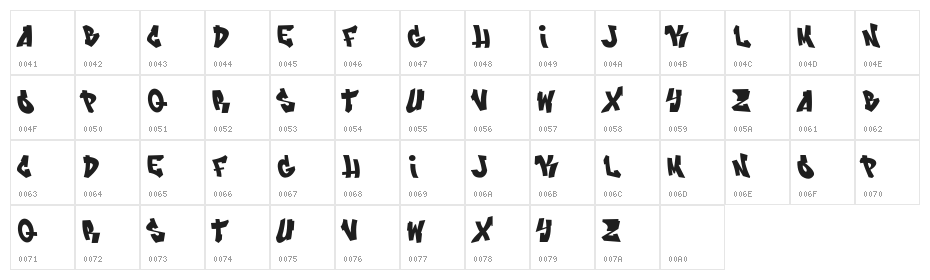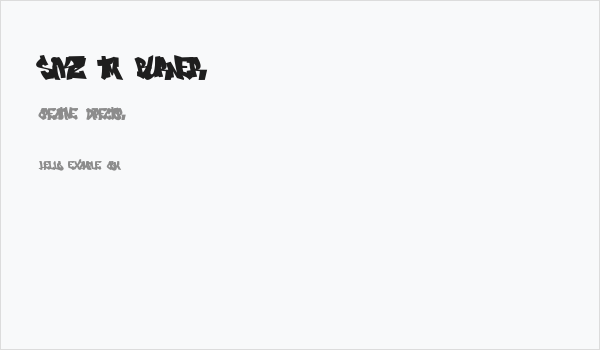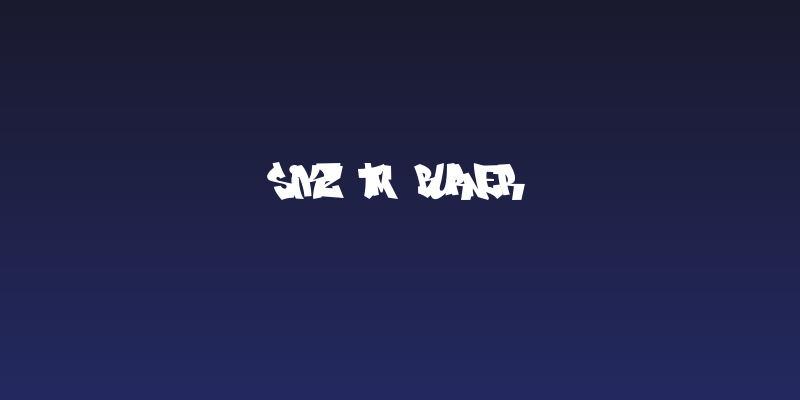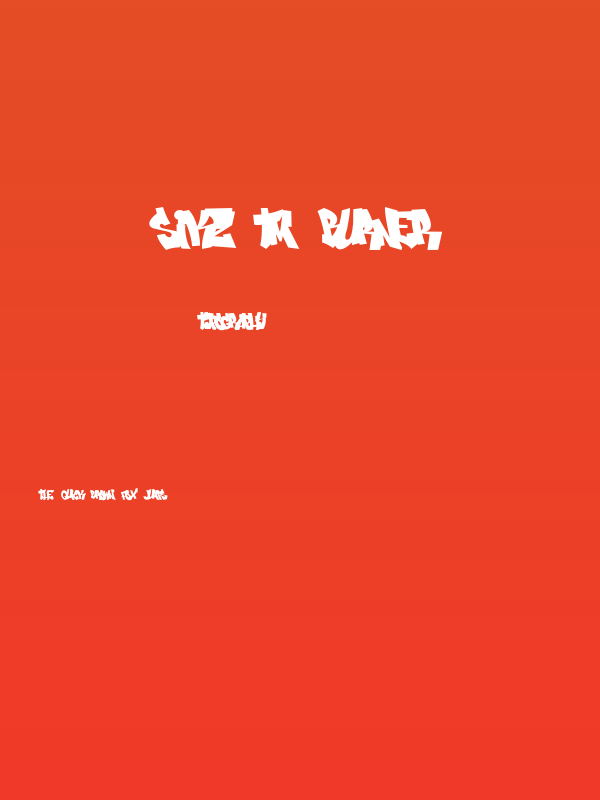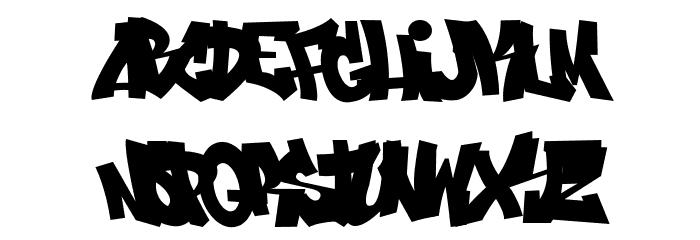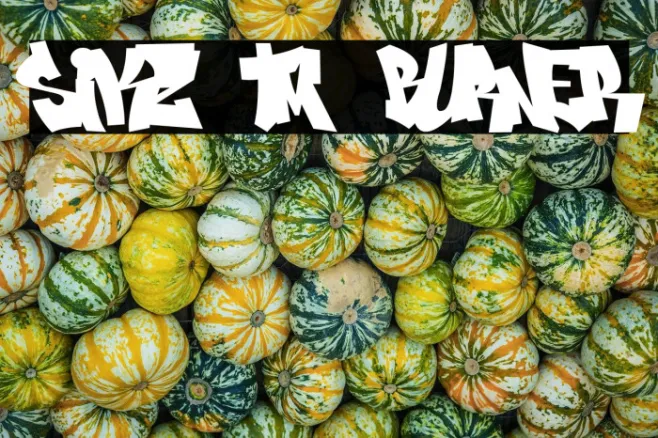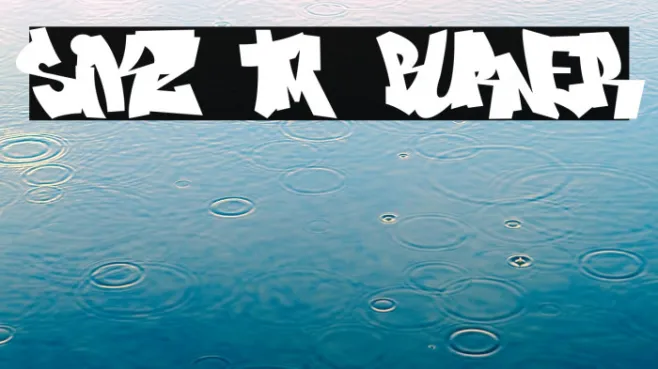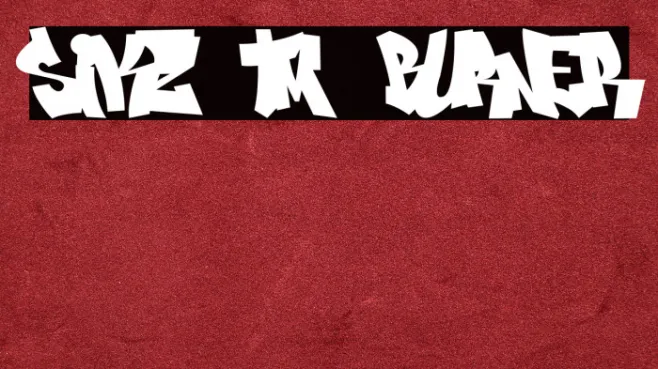
Sikz Tm Burner Font
Sikz Tm Burner Description
This font exudes a bold and dynamic graffiti style, characterized by its thick, angular strokes and energetic flow. The letters are tightly packed, creating a sense of urgency and movement. Each character is uniquely stylized, with exaggerated curves and sharp edges that give it a rebellious and urban feel. The font's design is reminiscent of street art, making it perfect for projects that require a strong, impactful visual statement. Its boldness and distinctiveness make it stand out, ensuring that any text using this font will capture attention.
| Overall Style | Urban, Rebellious, Energetic |
| Proposed Projects | Ideal for street art-inspired designs, music album covers, urban-themed posters, and edgy branding projects. |